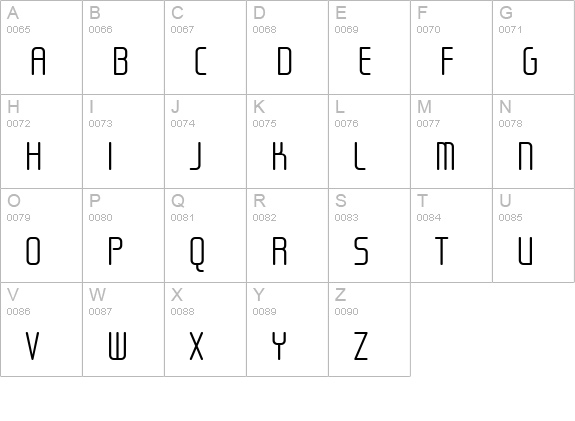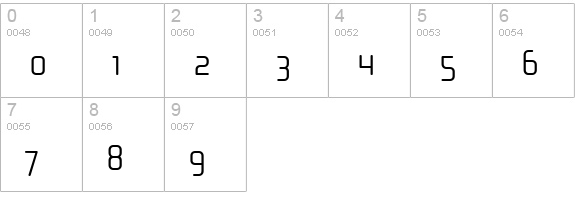
Sugarskin BTN Font Details
Sugarskin BTN is a charming and versatile font that exudes a sense of whimsy and playfulness. With its elegant curves and clean lines, this font is perfect for a wide range of design projects, from invitations to logos to branding materials. The smooth and flowing nature of Sugarskin BTN makes it ideal for adding a touch of sophistication to any design. What's even better is that Sugarskin BTN is available for free download at FontsMarket.com! This means that you can easily access this beautiful font and incorporate it into your projects without breaking the bank. Whether you're a seasoned designer or just starting out, Sugarskin BTN is a fantastic addition to your font library. Download it today and let your creativity soar with this delightful and eye-catching font.